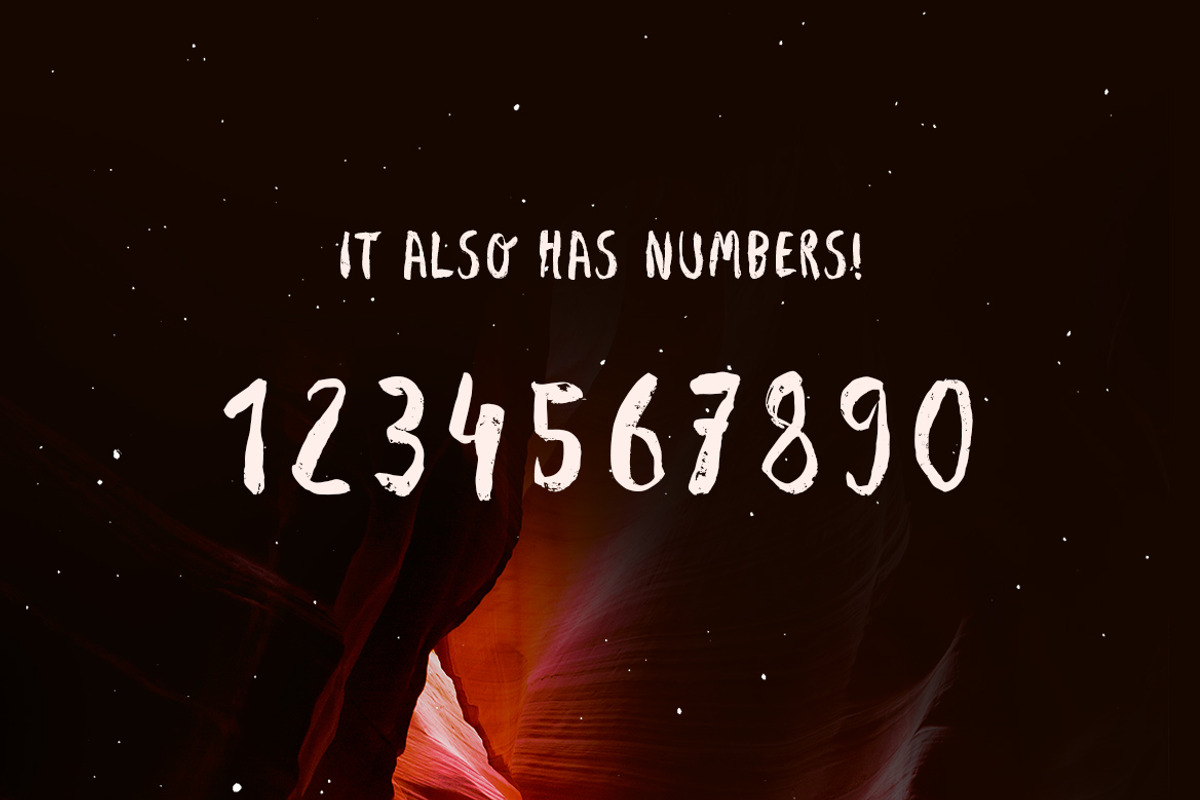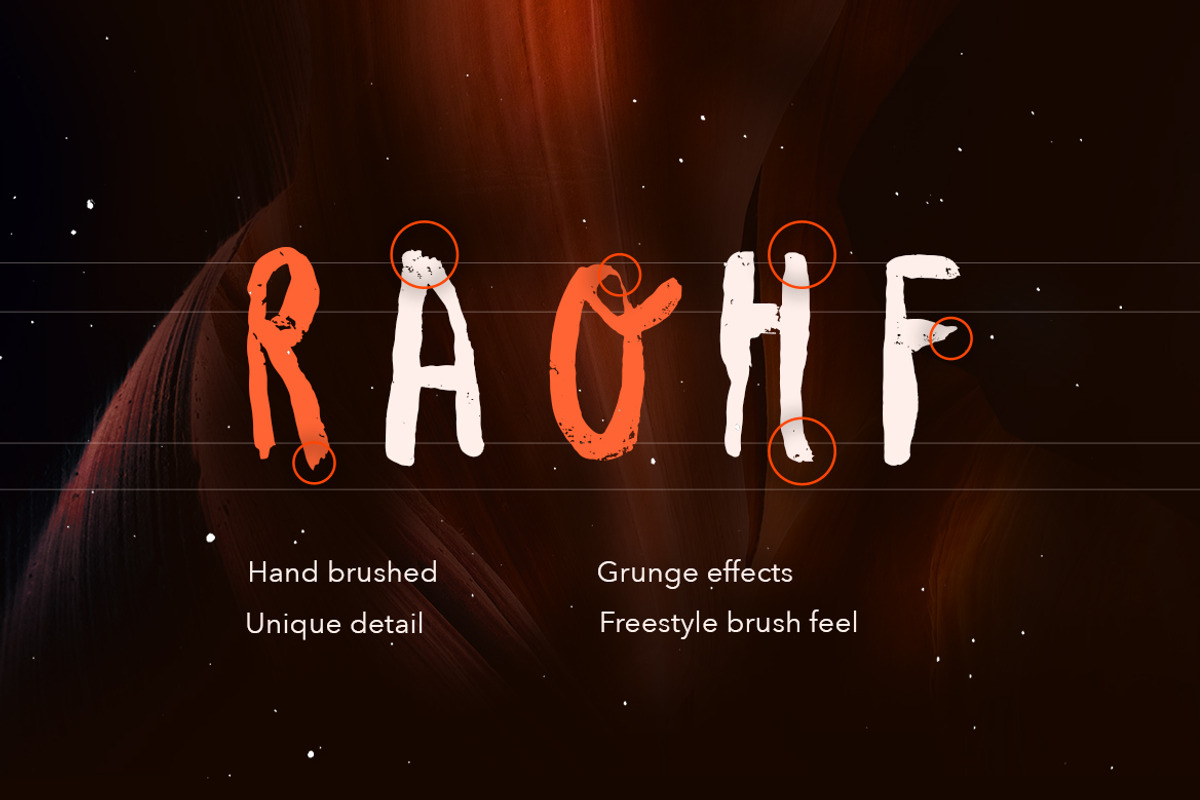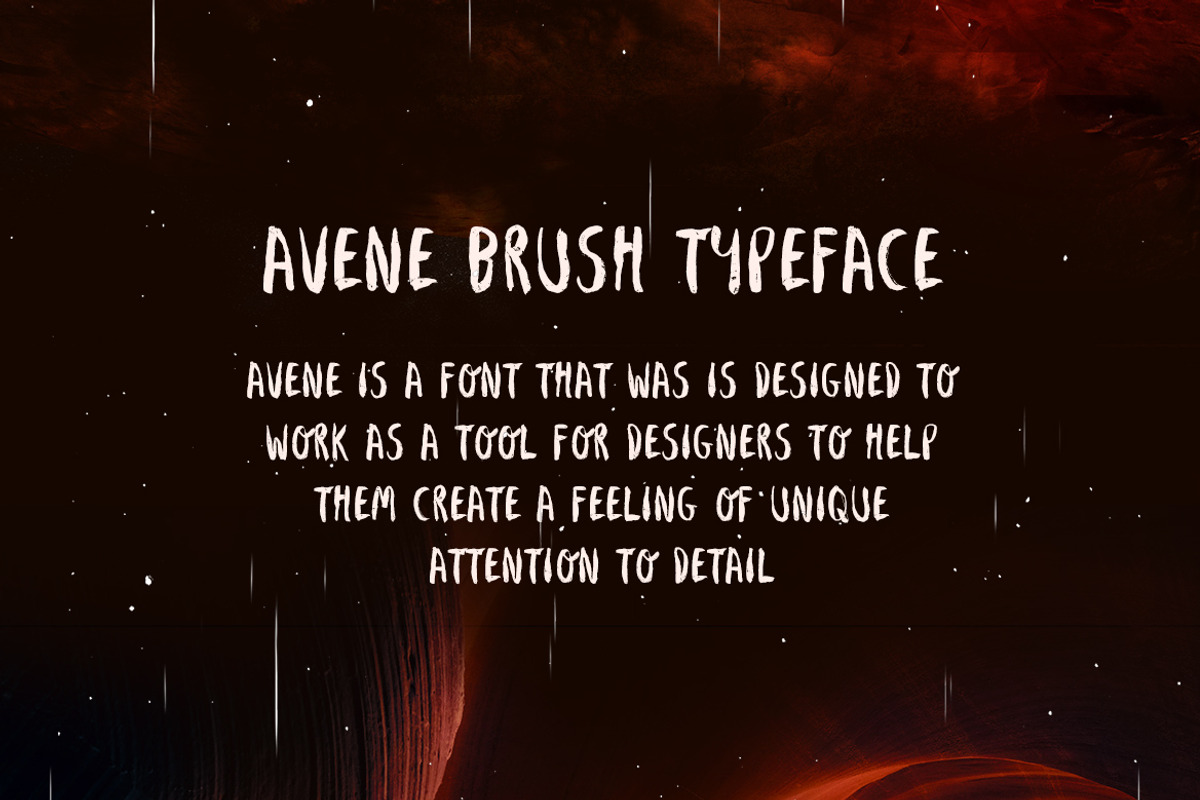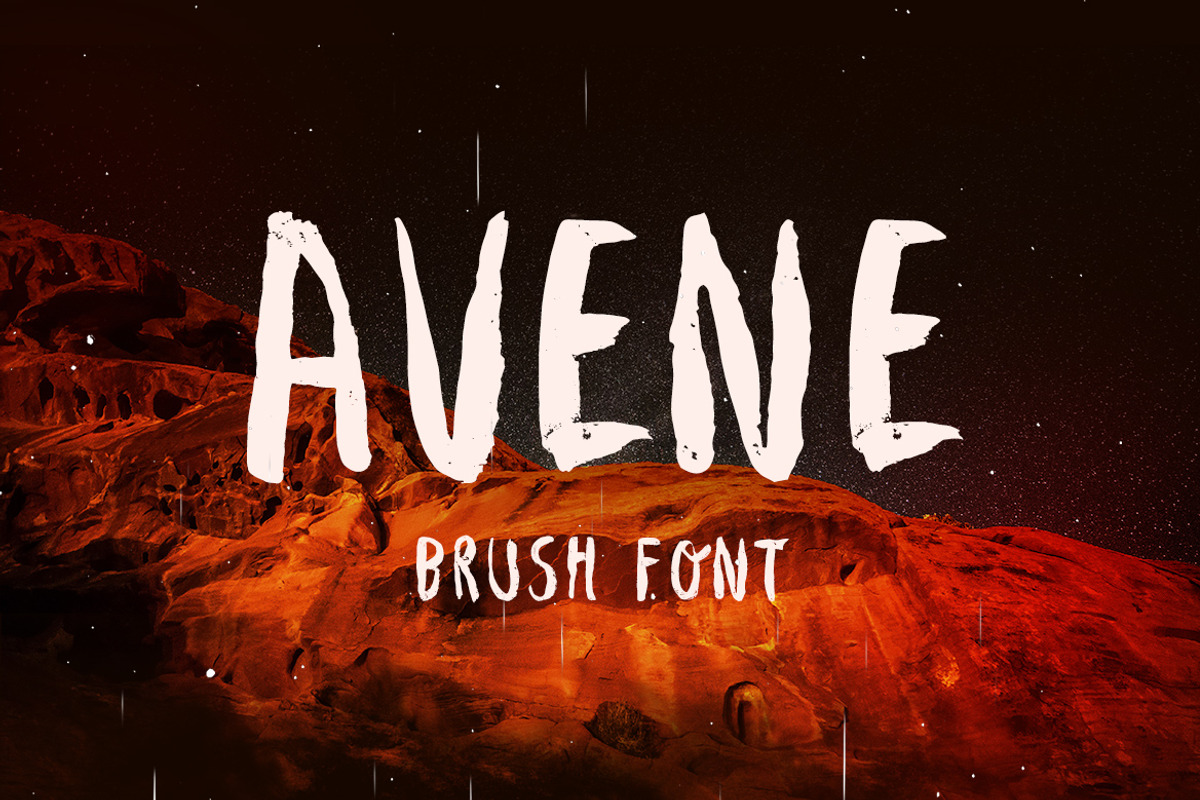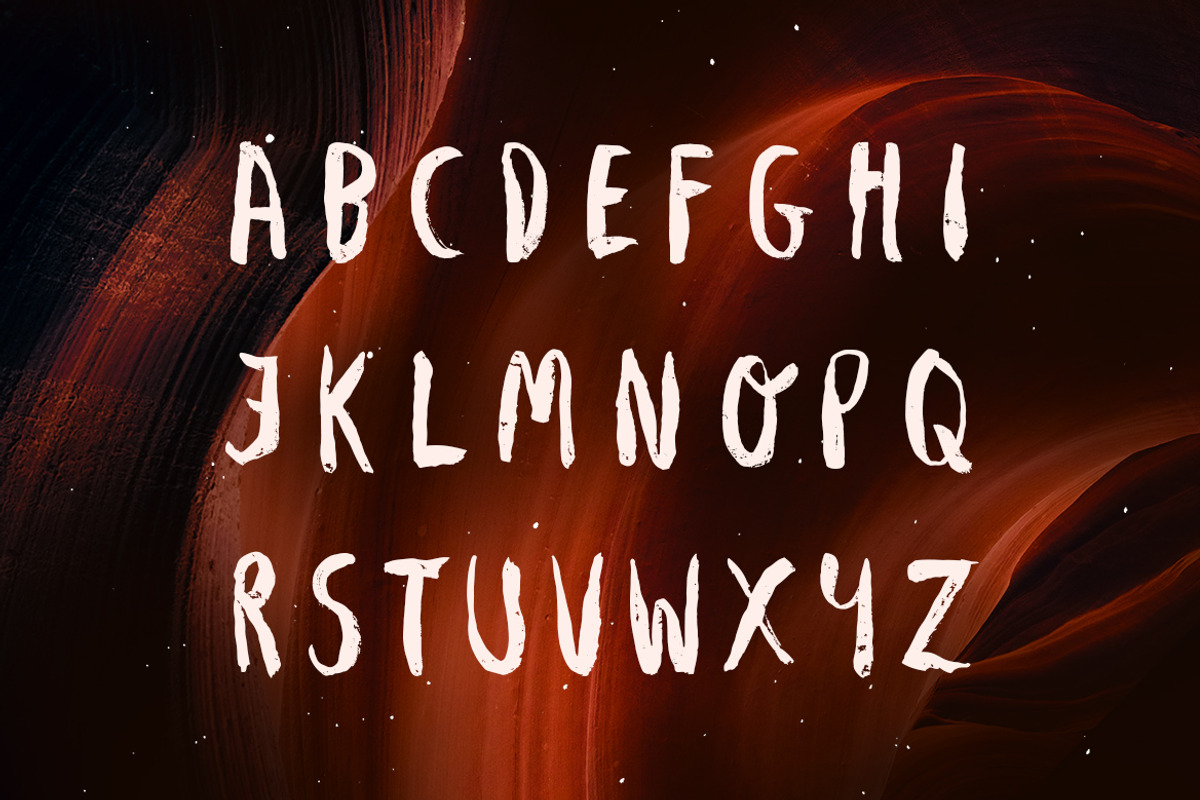
Avene Brush Font
Avene Brush Font by Wild Ones is a font selected for branding, posters, packaging, typography.
- It features 94 characters and has all the basic glyphs.
Why Avene Brush Font is worth a look
Avene Brush Font by Wild Ones fits naturally into Branding, posters, packaging, typography.